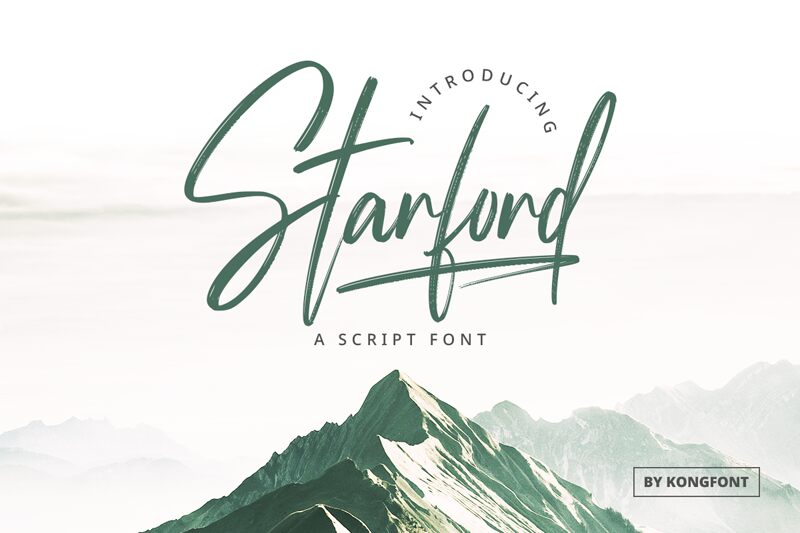
Starford
Starford font is a beautiful handwritten signature font by Kong Font. The graceful strokes flow elegantly, creating casual, expressive texts that combine the personal touch of natural handwriting with impressive style and readability. Starford is a light font which will make sure to bring as much attention as possible to the written words without designing them inappropriately.
This free handwritten font is an excellent choice for name signatures, CV designs, and book cover design (both for printed works or e-books). Add it to social media design, especially profile main and highlight pictures on Instagram or Facebook. Use it on invitation cards (marriage invitations), and business cards or display it in shop front signs when writing the name of the business.